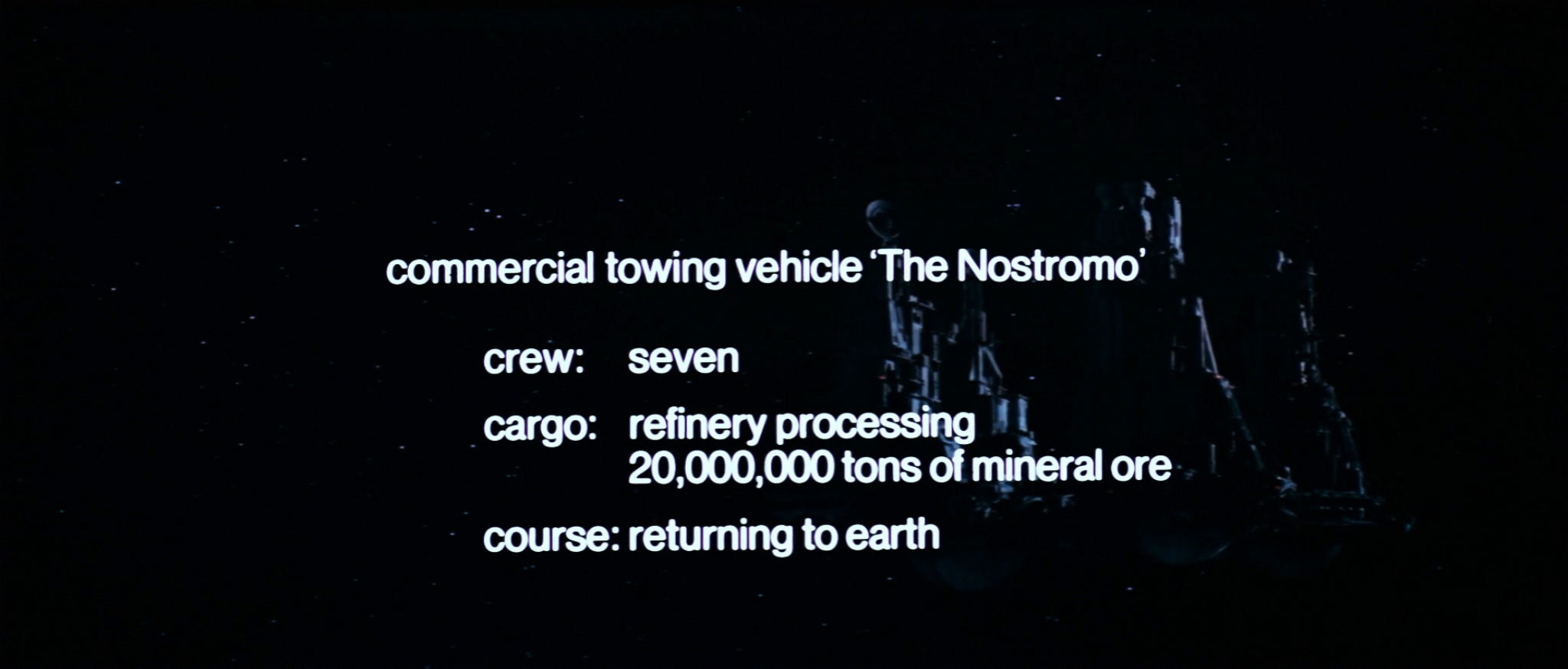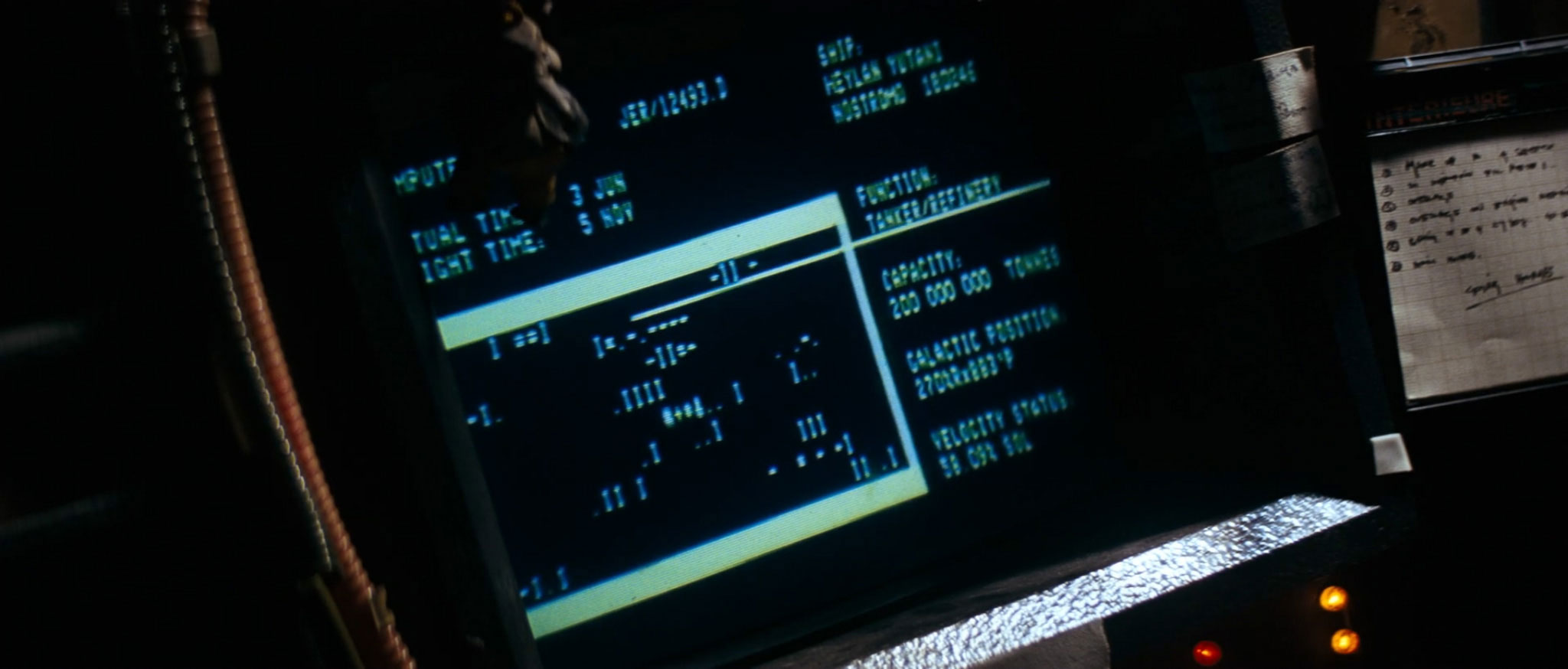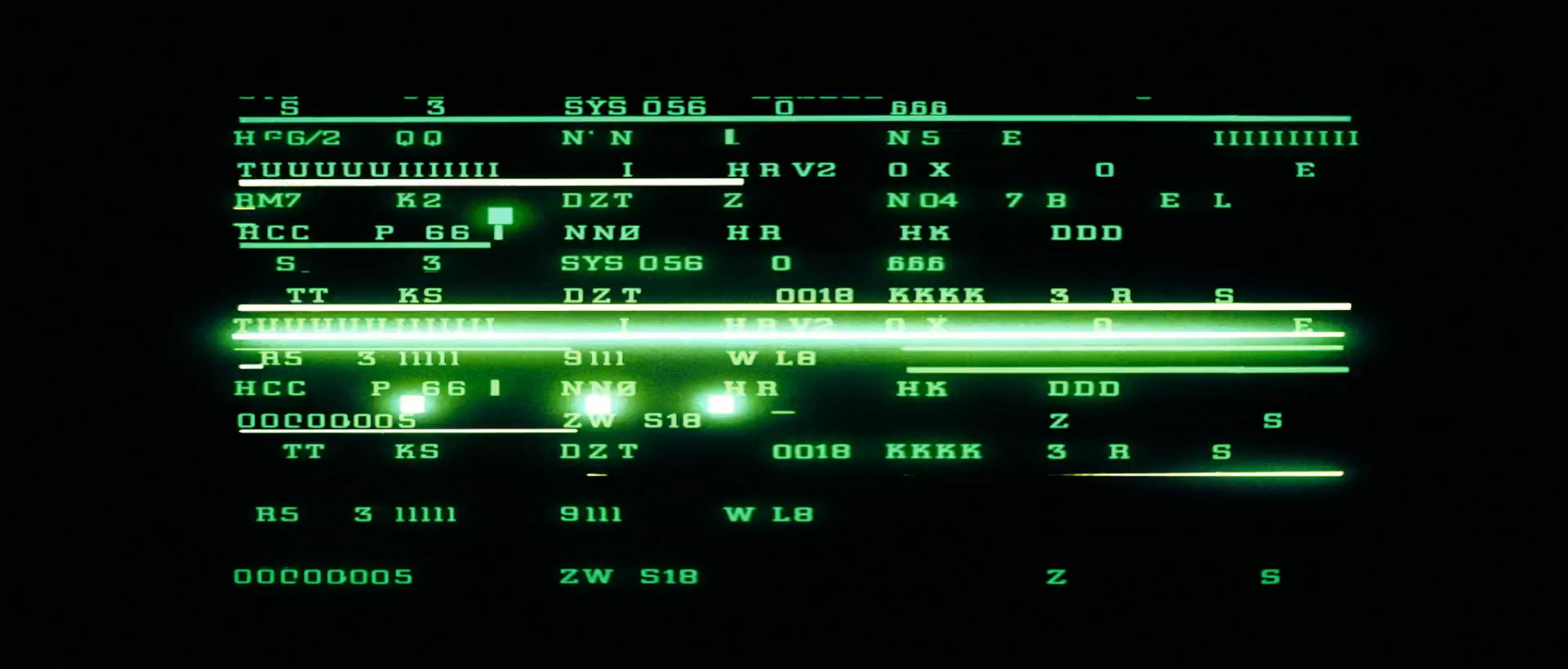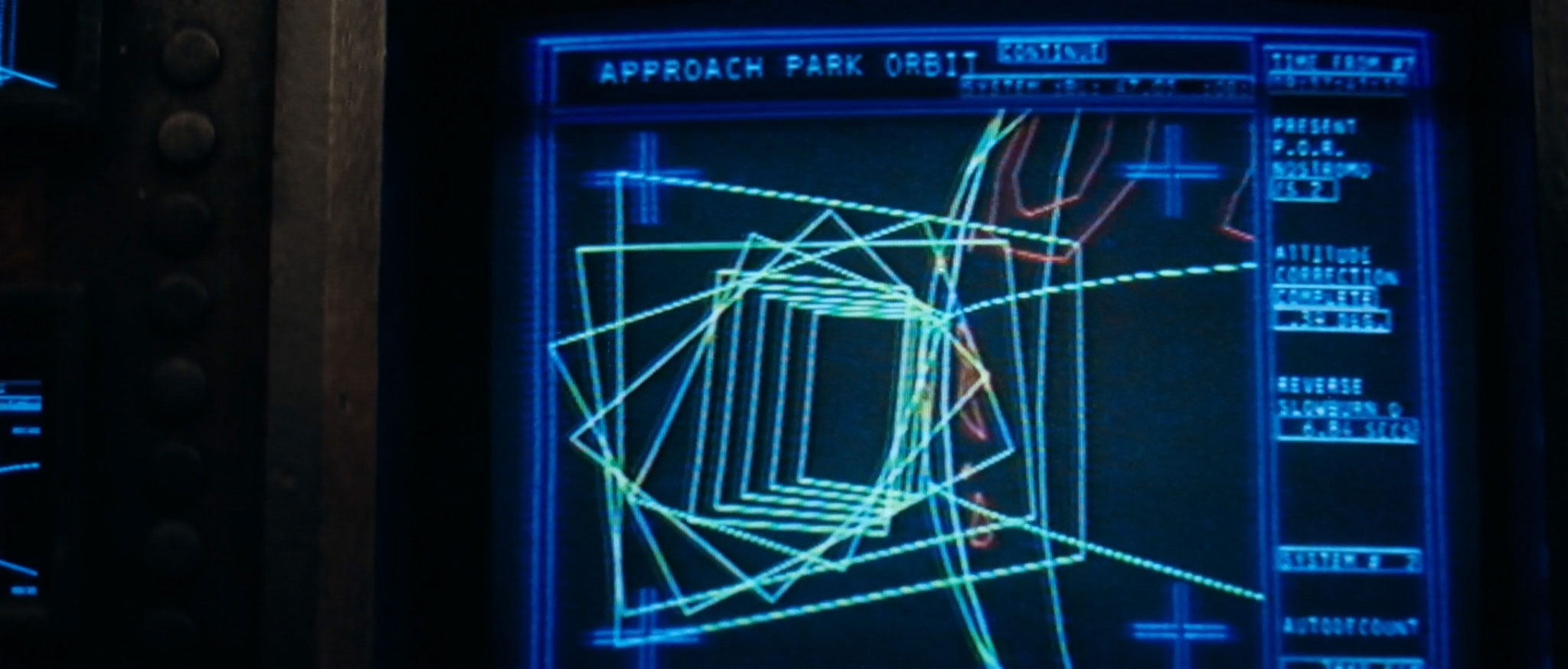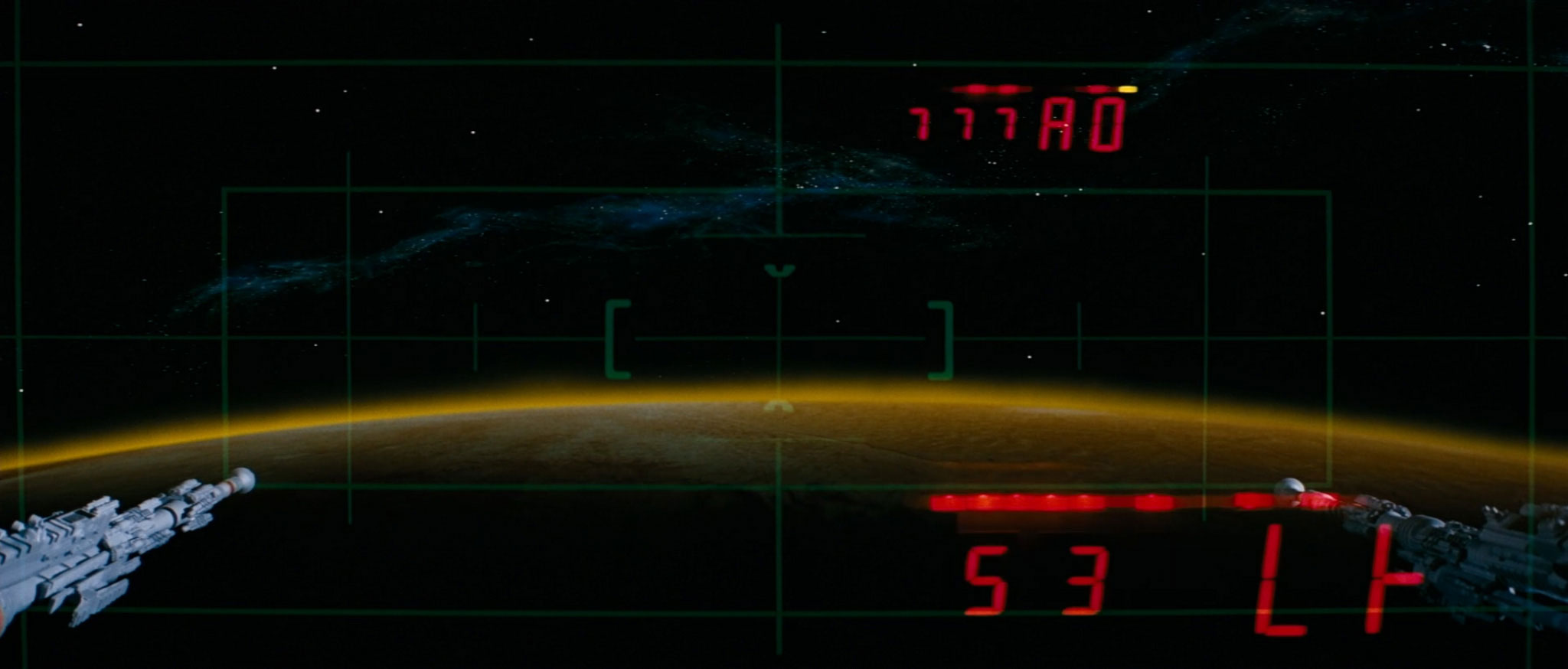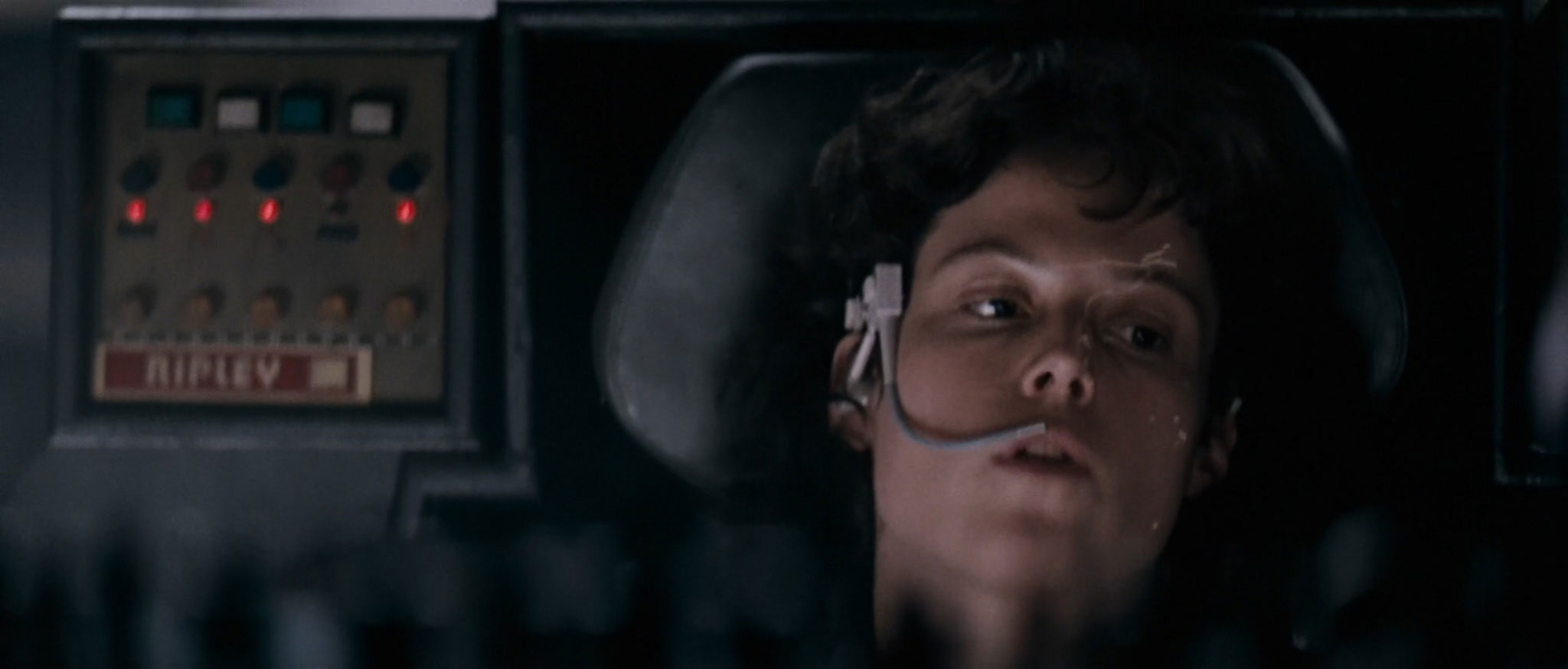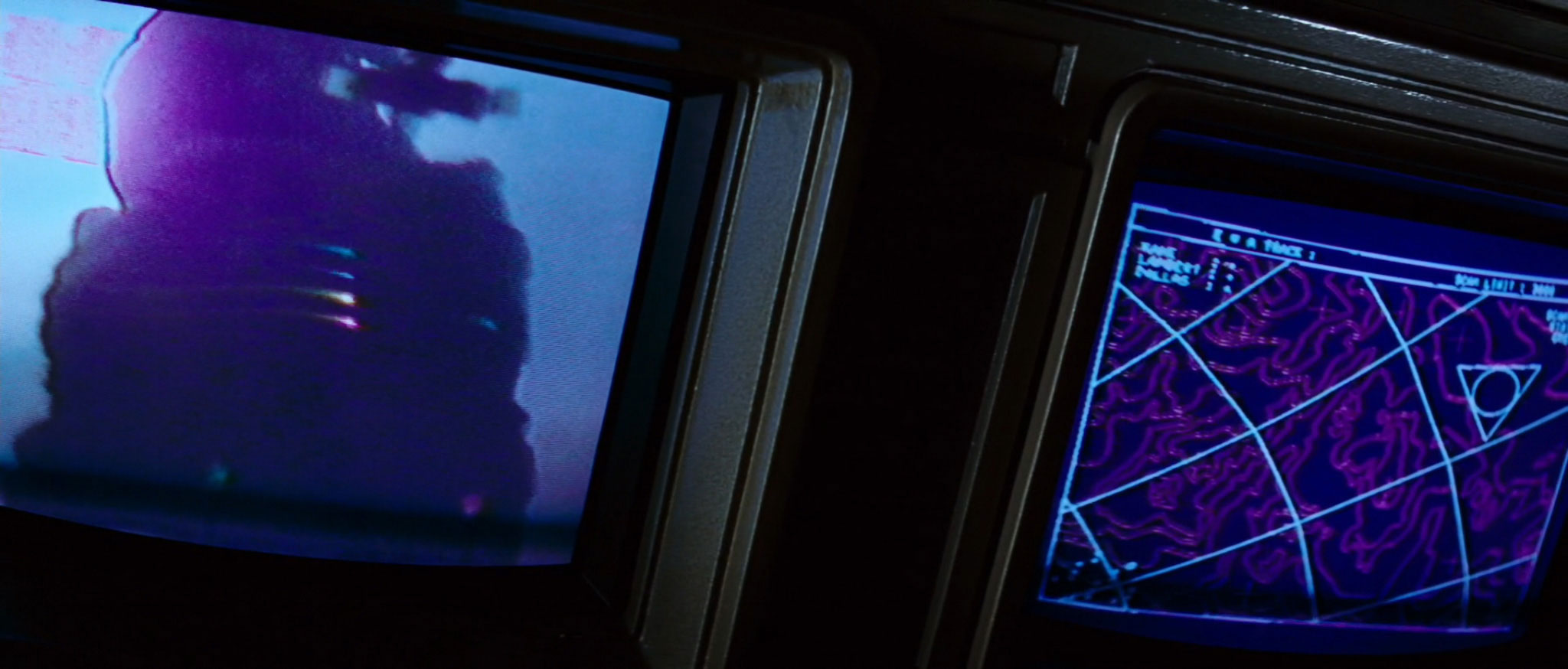
My third post about typography in sci-fi has been gestating for a while now. Indeed, it’s been slowly taking shape – you might say it’s been forming itself inside of me – for really quite some time.
I’m delighted to say that it is now ready to burst forth from my allegorical chest, and to spatter allegorical typographic blood all over your allegorical faces. Welcome to Typeset In The Future: The Alien Edition.
The opening credits for Alien are nothing short of a typographic masterpiece. You can watch them in their entirety on the Art Of The Title web site, but here’s the general gist: a slow, progressive disclosure of a disjointed, customized Futura reveals the movie’s central theme over 90 seconds of beautifully-spaced angular lettering.
UPDATE: Susan Bradley (and others) have pointed out that this is much more like Helvetica Black than Futura. I’d based my original claim on Art Of The Title’s interview with the creators, despite a mismatch when I checked it against Futura myself. However, after a detailed comparison with Helvetica Black, I tend to agree with Susan. Thank you for the correction!
Can you tell what it is yet?
It’s looking pretty angular.
And beautifully mirrored, at least along the y-axis.
Well, that was unexpected. I’m still none the wiser, mind.
WAIT A MINUTE. I might have an idea where this is going.
Oh, no, I was wrong. Still, that new line is almost certainly completing the middle part of a W, yes? (It certainly looks like two strokes and a crotch, at least from where I’m standing.)
WAIT ANOTHER MINUTE. Crop. Zoom. Enhance.
I hate to say it, but a little bit of the bar on this capital A (for it is he) has been allowed to bleed out into the unfolding titles. Talk about typographic spoilers. Look really closely and you’ll see what I mean:
That’s totally going to become a capital A, isn’t it? God, that’s ruined everything. In fact, I wouldn’t be at all surprised to discover that this entire credits sequence is going to end up spelling the word ALIEN:
After all that Futura-ish beauty, it’s a little disappointing to see a follow-up card introduce commercial towing vehicle The Nostromo with some slightly fuzzy Helvetica:
This title card from Alien is an example – possibly the Ur Example – of a popular sci-fi trope, the Foreshadowing Inventory. Seven crew, you say? Hmm. Seven. Let’s hope nothing disastrous happens to them, one by one. And their course is set for a return to Earth, eh? Well, I’m sure that’s the likely outcome for this particular story.
The Foreshadowing Inventory crops up in other movies too, such as the opening card from Moon:
A crew of one, you say? And there for only three years? Interesting. I wonder if these facts will turn out to be significant to the plot?
A final point on Alien’s Foreshadowing Inventory: hmm. That’s a nice twenty million tons of mineral ore you’ve got there. It would be a shame if something were to… happen to it. (We do like a good bit of typographic foreshadowing here at TITF.)
Let’s take a look on board the Nostromo. The opening shots of the craft give some tantalizing glimpses of its wall-based iconography:
These icons are the work of cinematic design legend Ron Cobb. He named them the Semiotic Standard For All Commercial Trans-Stellar Utility Lifter And Heavy Element Transport Spacecraft. The production sketches below are from Cobb’s 1981 collected works, Colorvision:
My favorite is #23 – “COFFEE”:
“Semiotics”, of course, is “the study of signs and symbols, and their use or interpretation”. (I could just as easily have called this blog Semiotic-matic.)
You might have noticed that these icons bear a striking resemblance to the rounded rectangles used for modern app iconography. Indeed, design company The Iconfactory has recreated the Semiotic Standard as a beautiful set of iOS app icons. It could be argued that Cobb provided the inspiration for rounded-rectangle iconography some 28 years before Apple made it the standard on the iPhone. (Although tegestologists may well argue their case too.)
A quick glance back over the iconography of Moon shows that (like many sci-fi movies) it owes a large debt to the Semiotic Standard:
On the subject of iconography: the set of Alien was actually built as a single sprawling series of interconnected rooms, just like the set of Moon. Here we have the Nostromo‘s Control Room at the top of the photo, connected to the Central Corridor below:
I like to think that the Semiotic Standard served a practical purpose for the cast, helping them to navigate around the Nostromo as they made their way through filming.